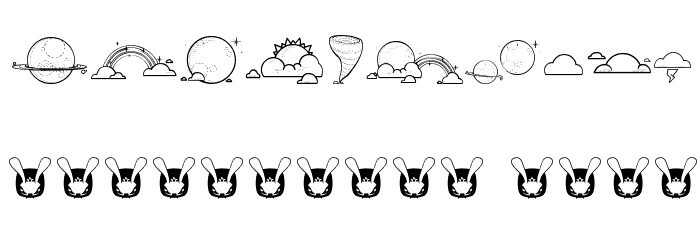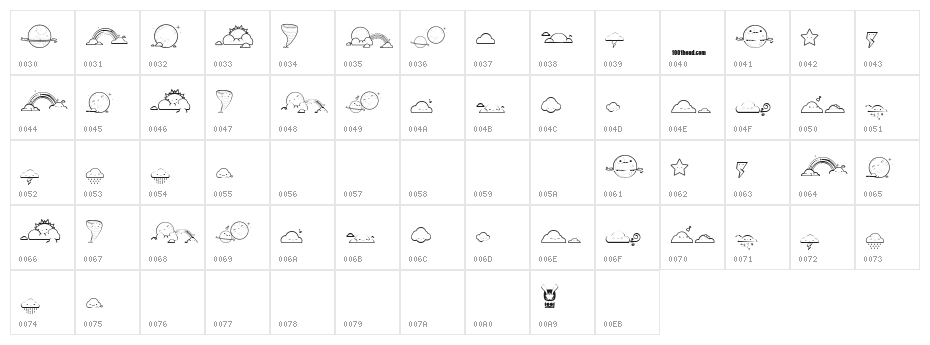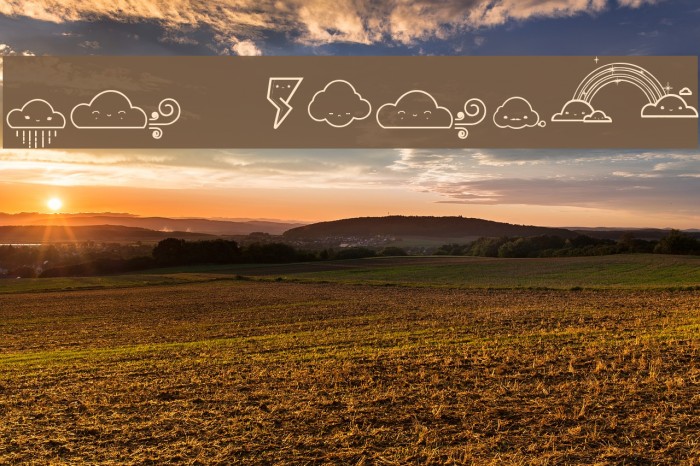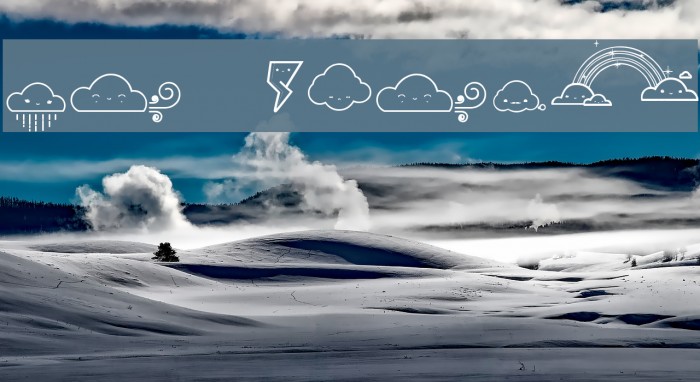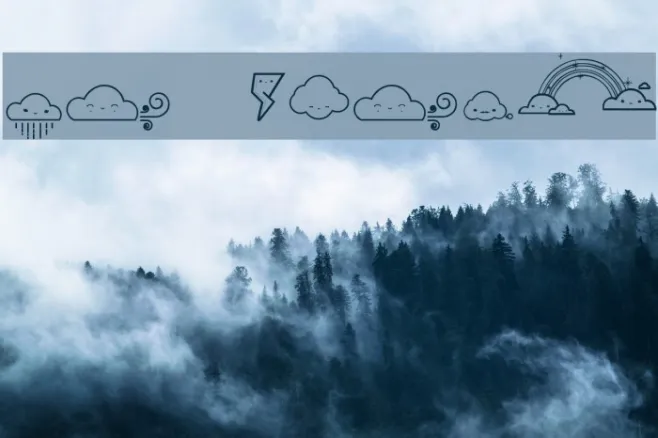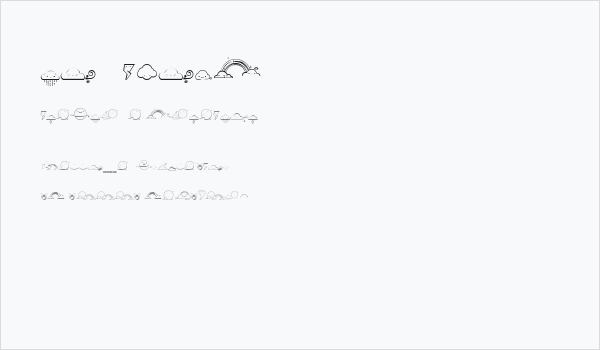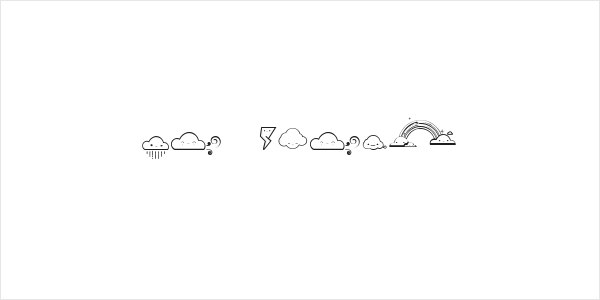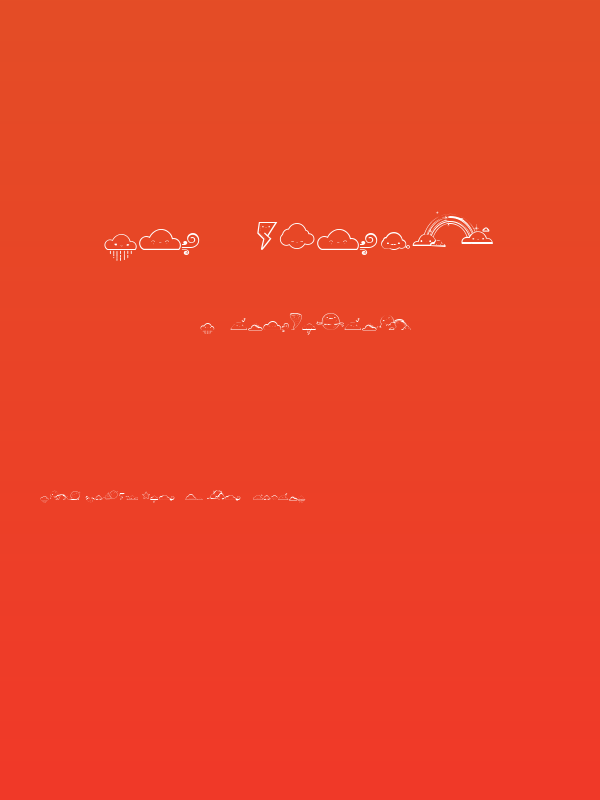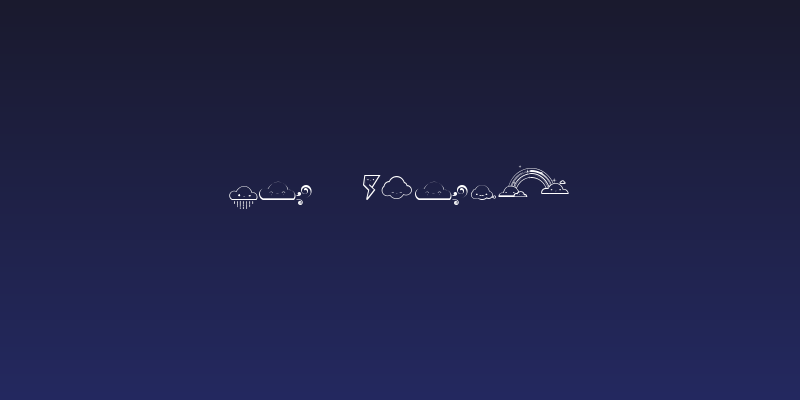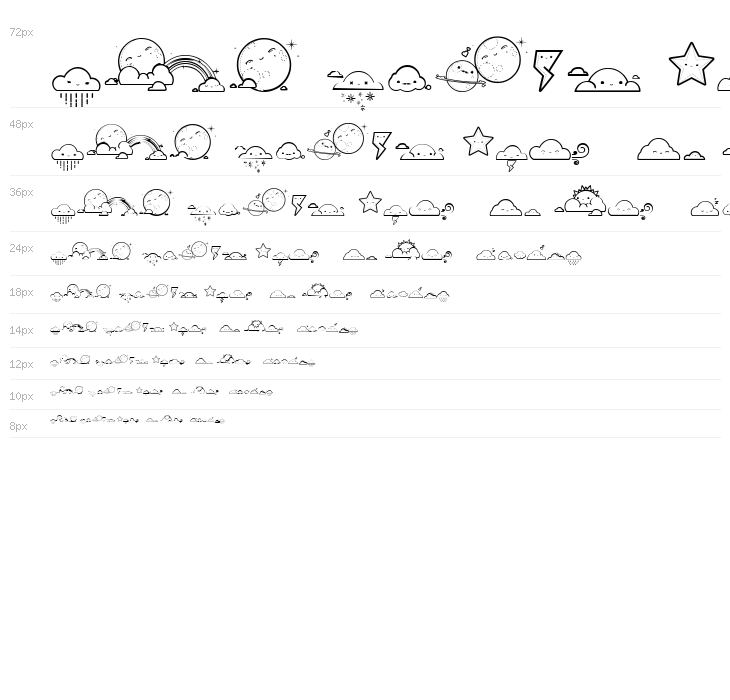
Toy Cloud Font
Toy Cloud Description
This is a whimsical and playful set of icons featuring various weather and celestial elements. Each character is represented by a unique illustration, including planets, stars, rainbows, clouds, and weather phenomena like tornadoes and rain. The icons are outlined with a clean, thin line, and some include small decorative elements like sparkles and swirls. The overall design is charming and suitable for projects that require a lighthearted and imaginative touch.
| Overall Style | Whimsical |
| Use Case | Icons, Illustrations, Decorative elements |
| Proposed Projects | Ideal for children's books, educational materials, weather apps, and playful branding projects. |